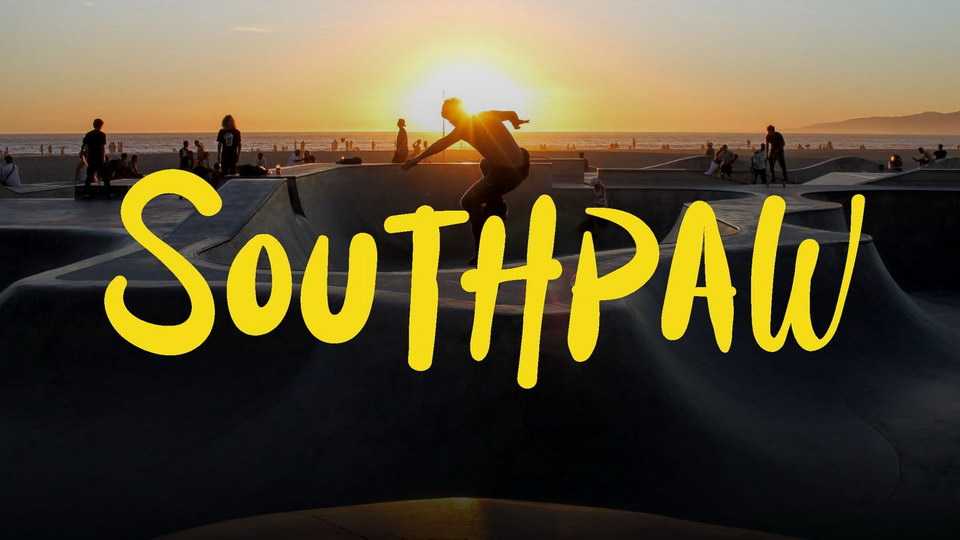
Download Southpaw font, an urban street brush font It’s all about aggressiveness, energy, and rebel youth. Don’t let the blob and rounded corner fools you. Southpaw is just a punch in the face!